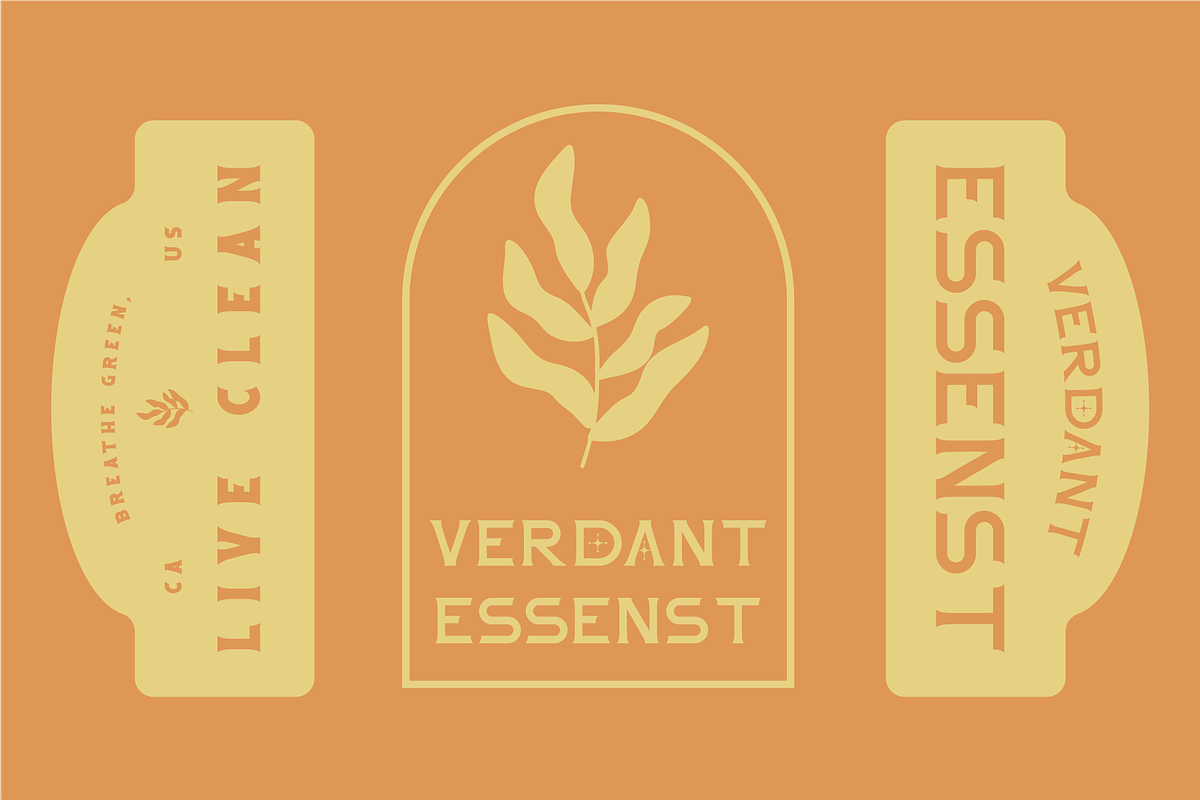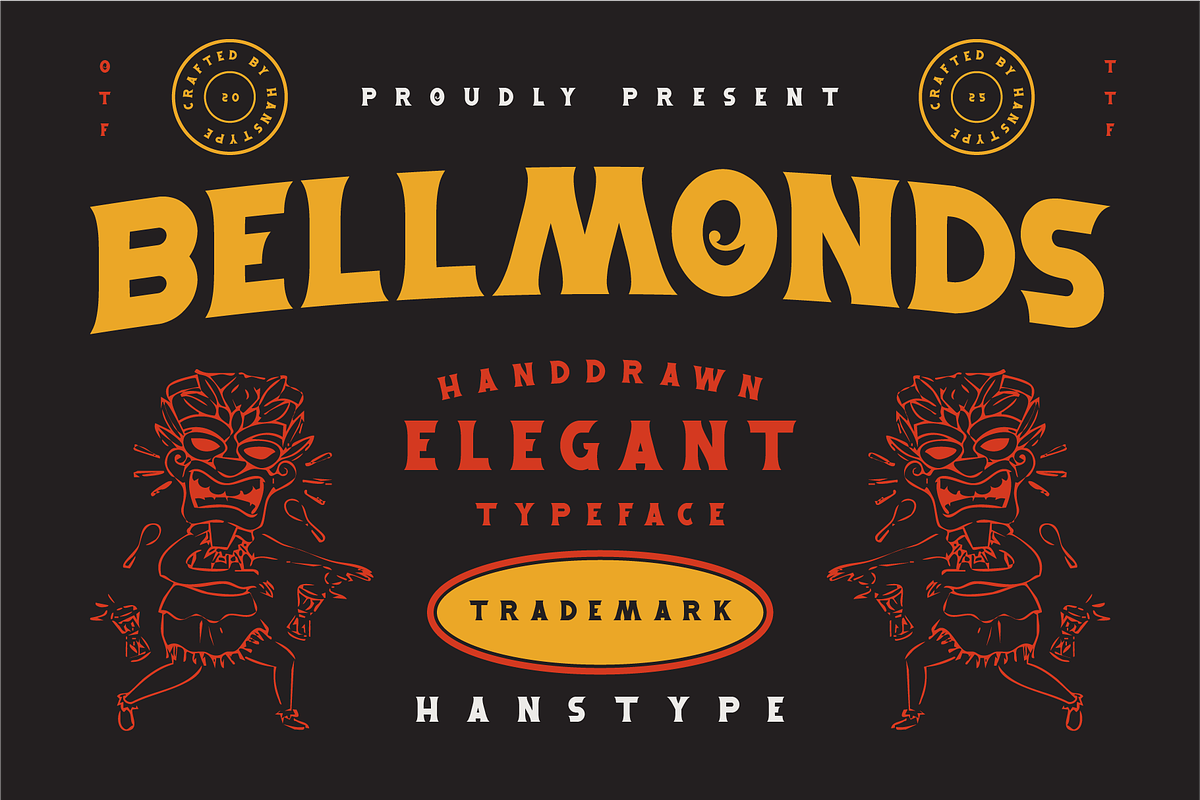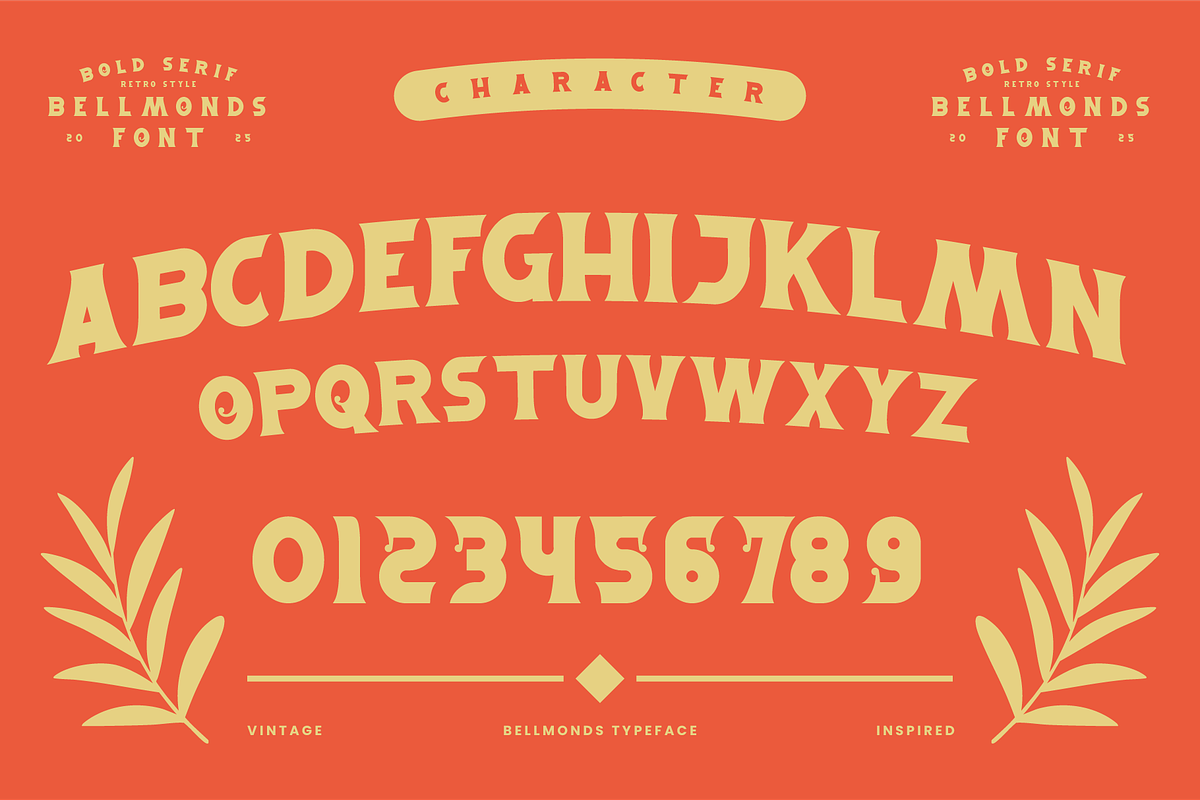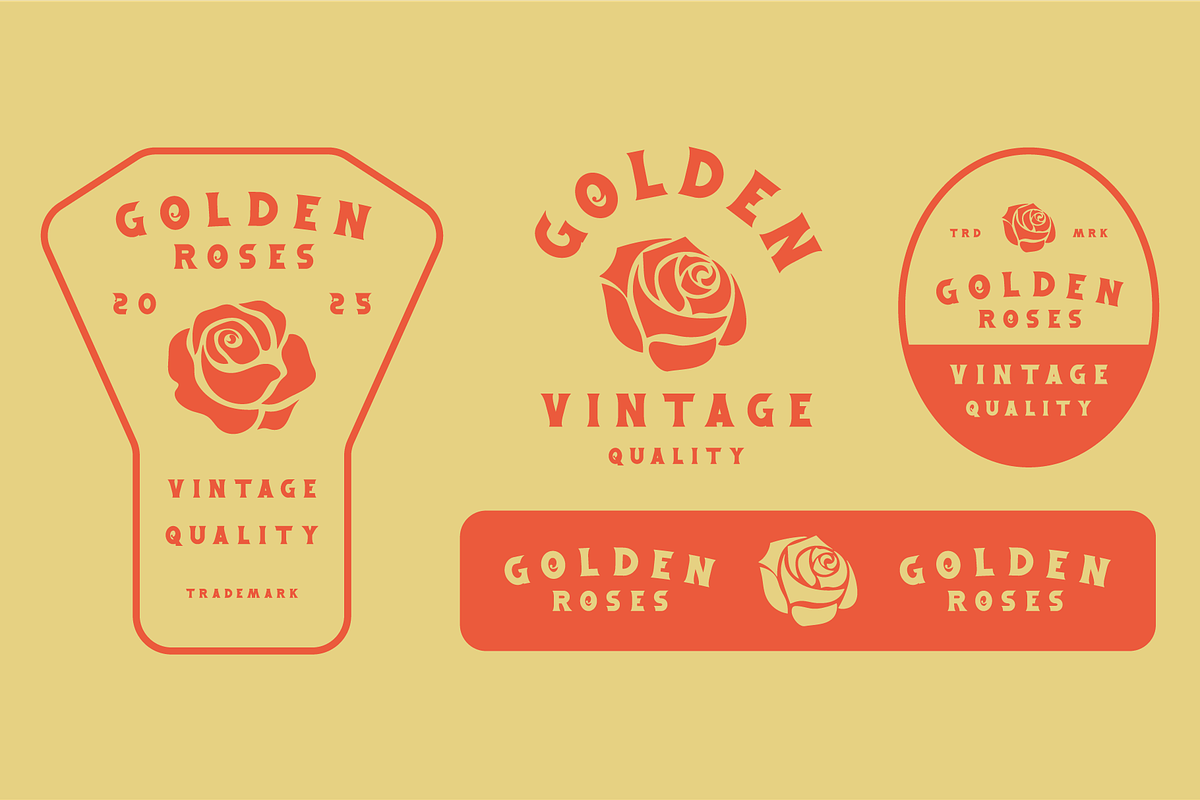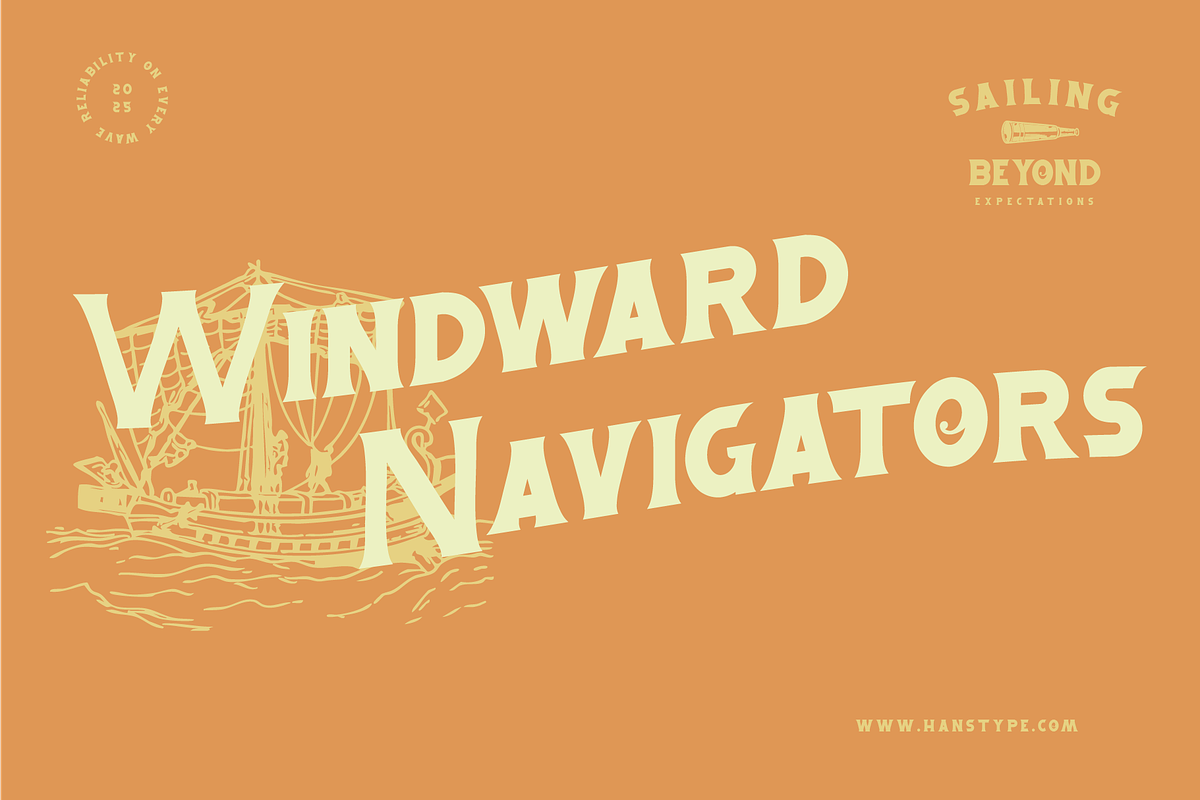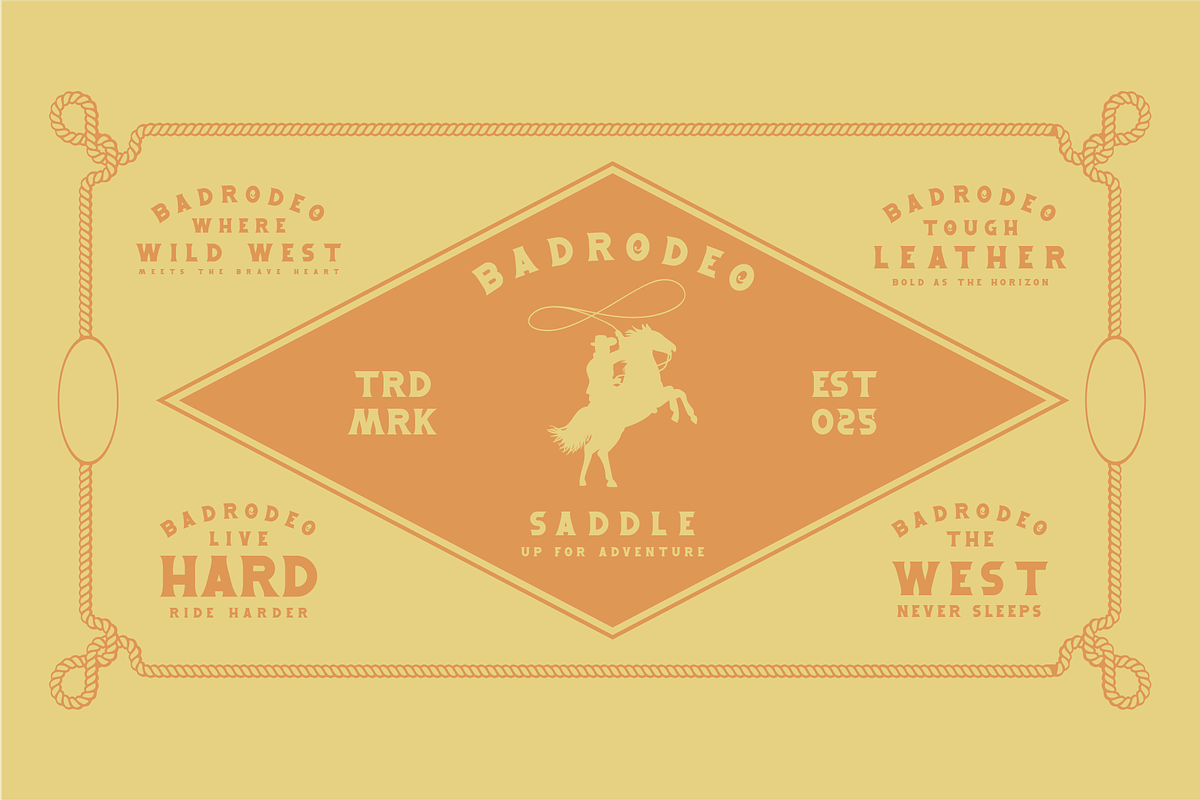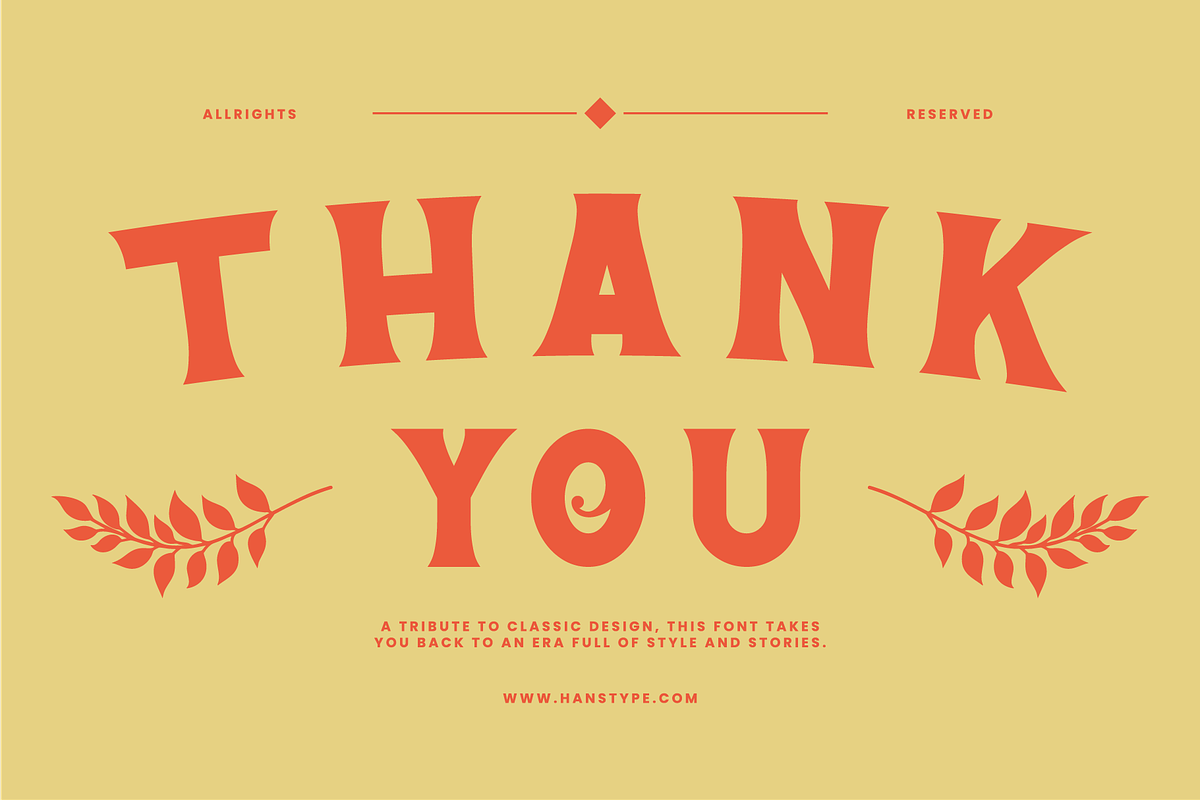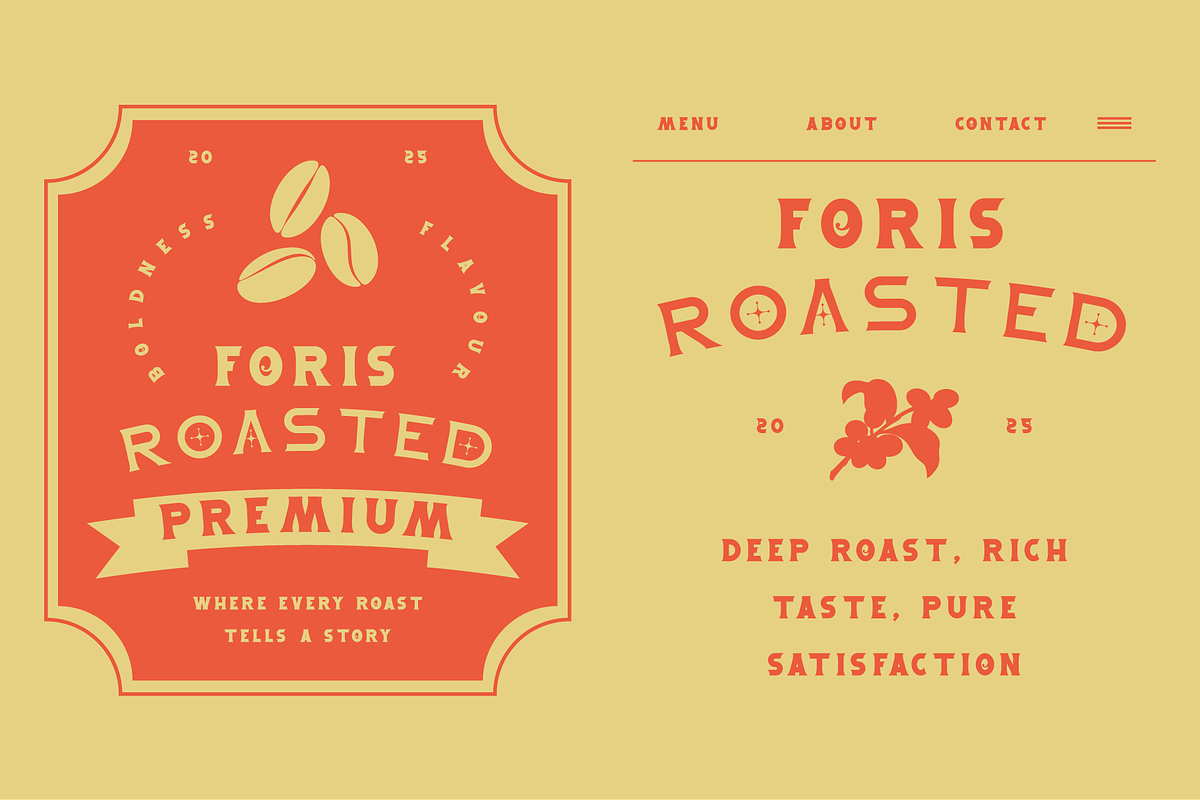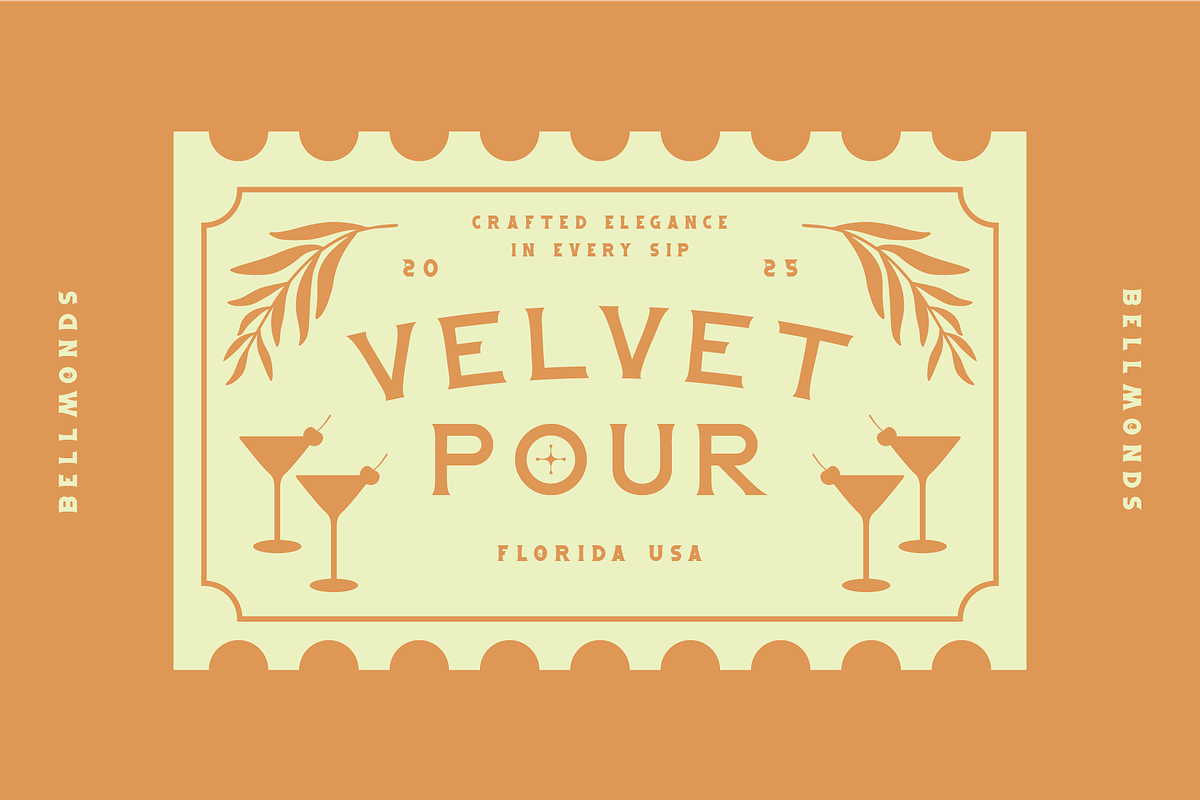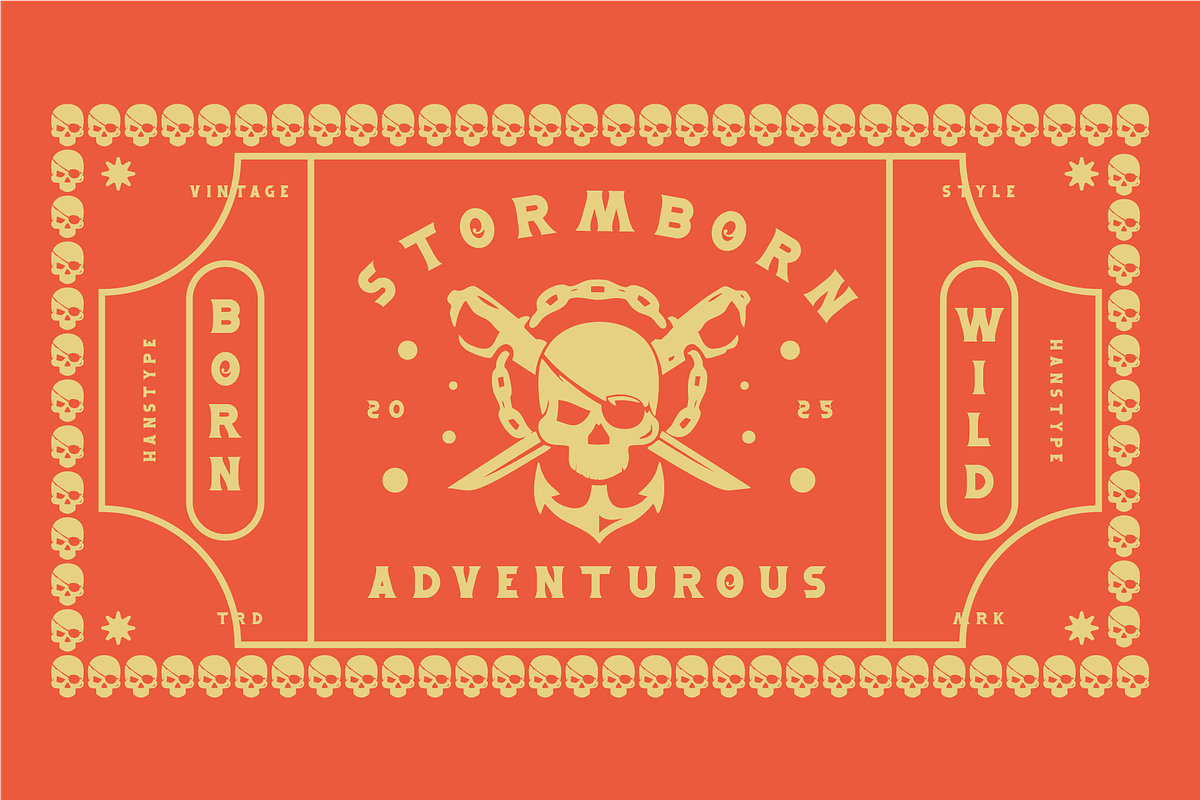
Bellmonds - Bold Serif
Bellmonds a striking display serif font that seamlessly blends timeless elegance with contemporary flair. Inspired by classic serif typography, Bellmonds features sharp, refined lines and graceful curves, making it perfect for high-end branding, luxurious logos, editorial designs, and impactful headlines. Its sophisticated yet bold presence brings a sense of authority and style to any project.